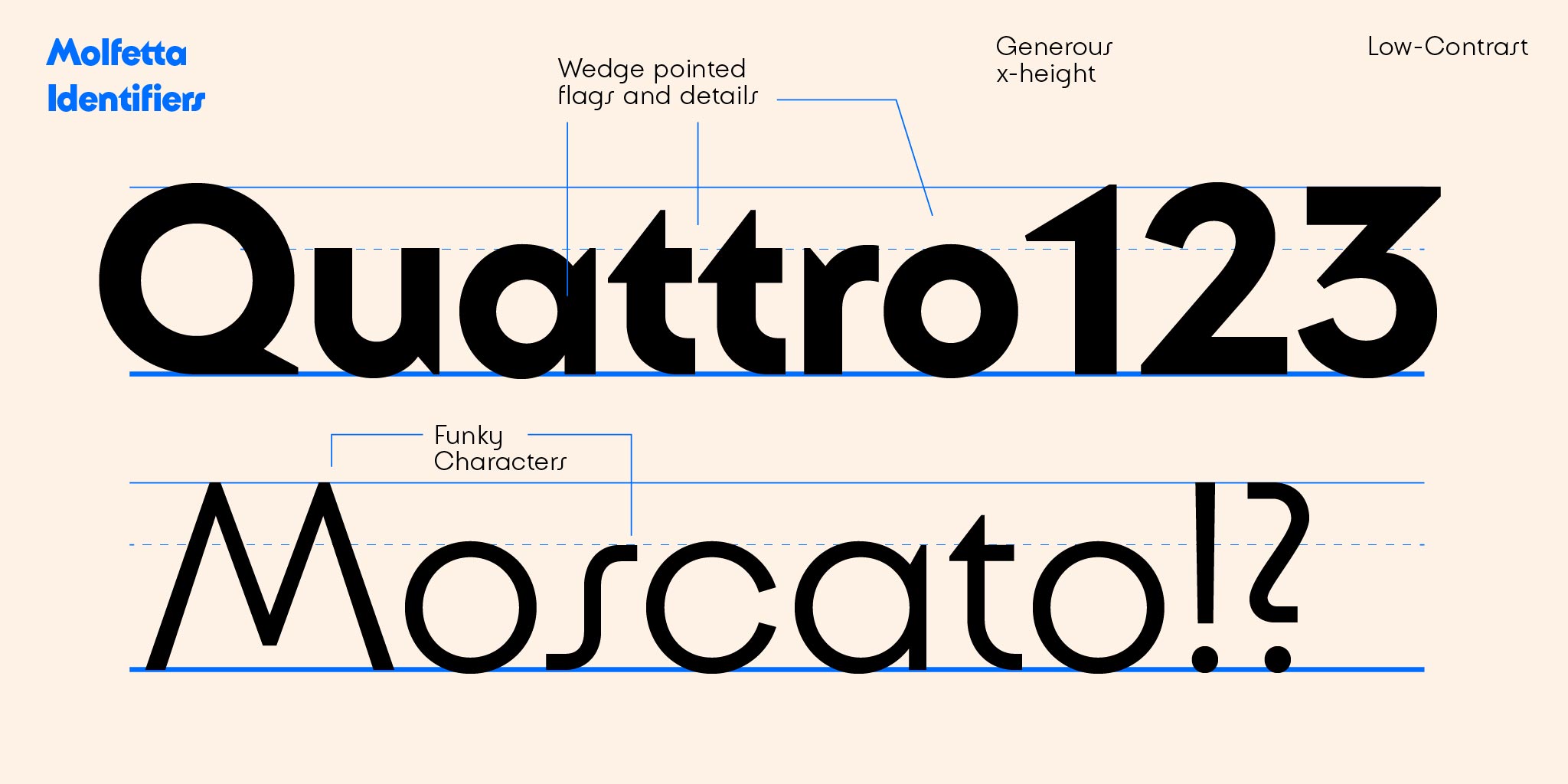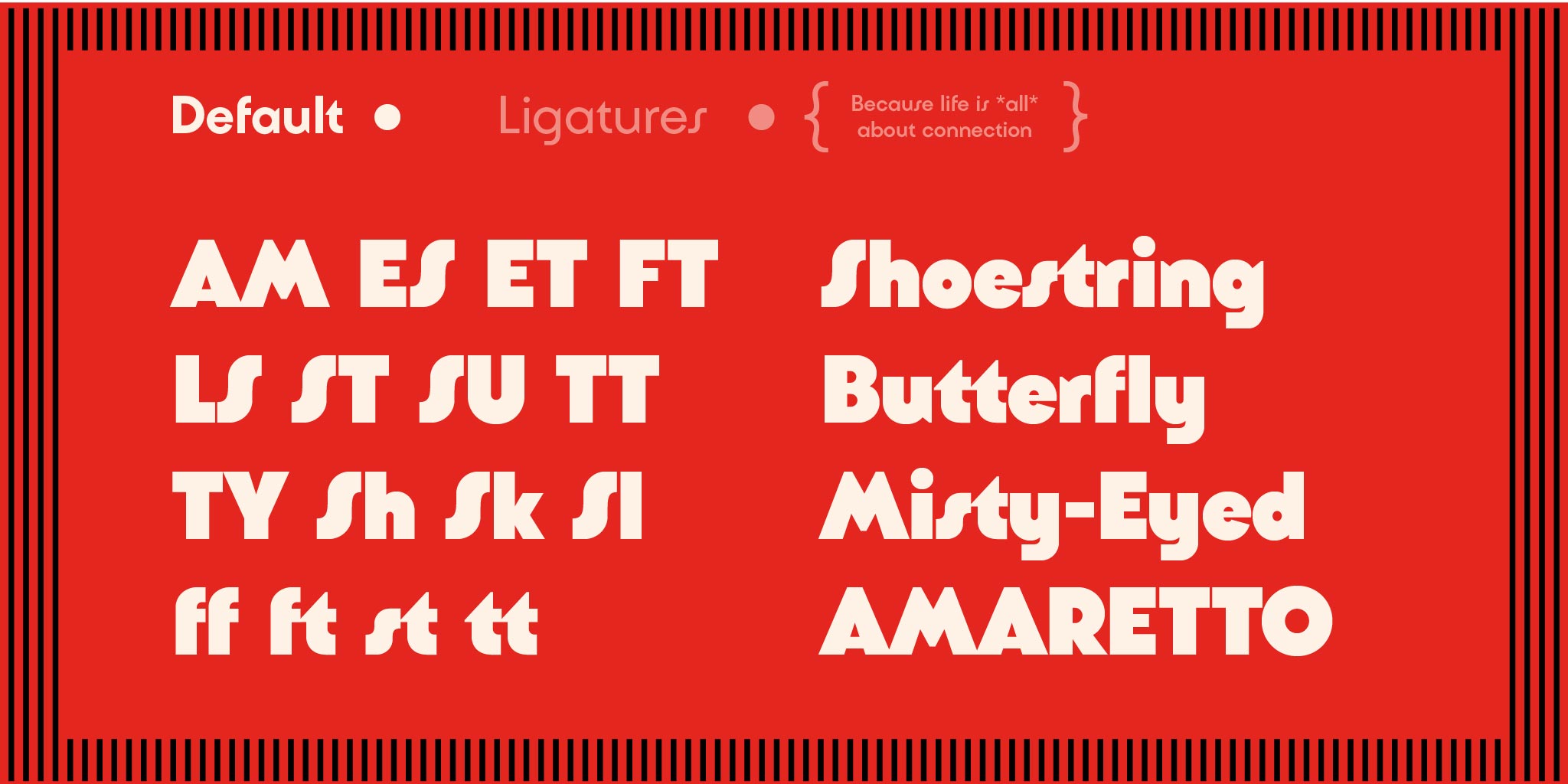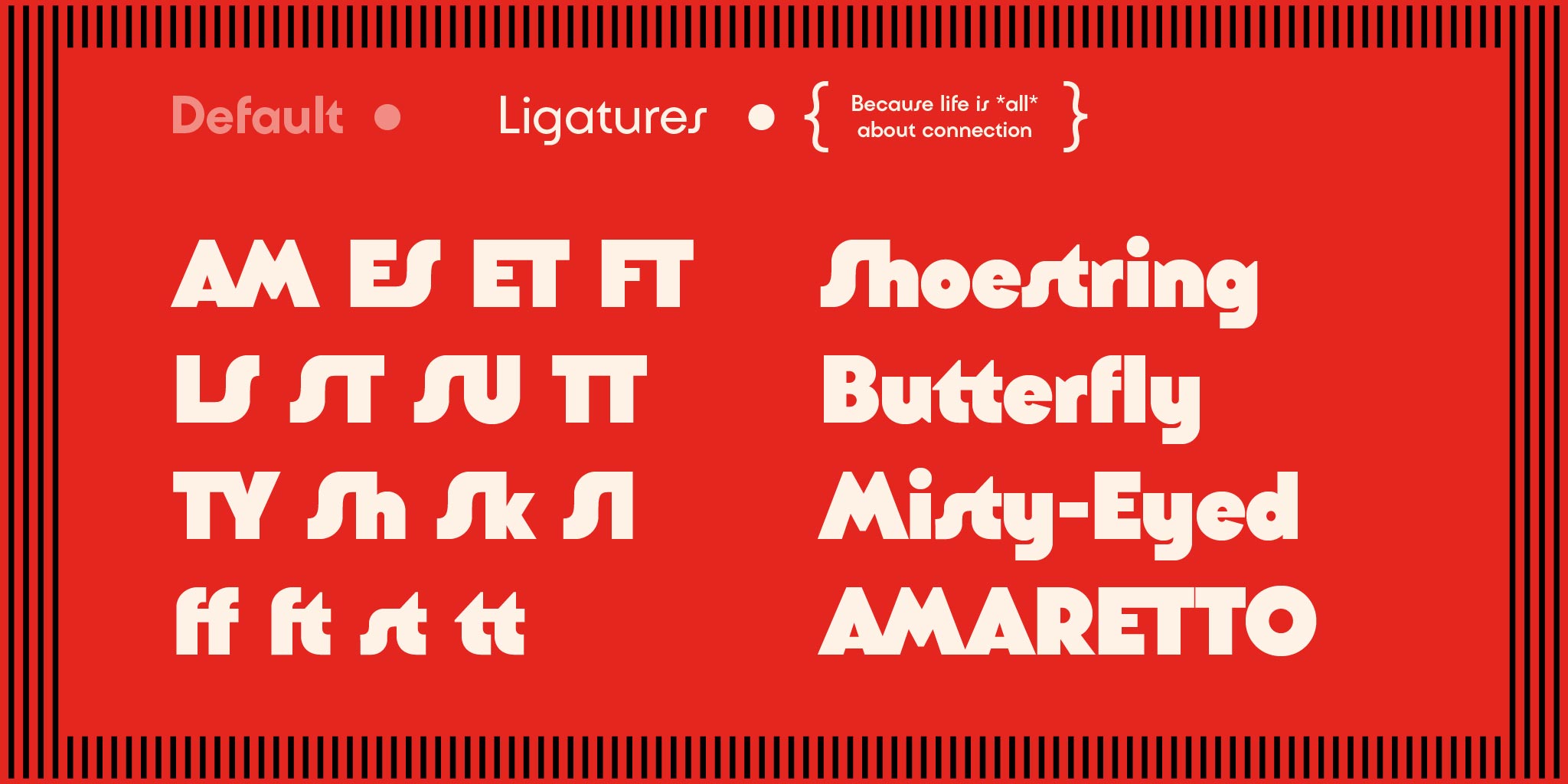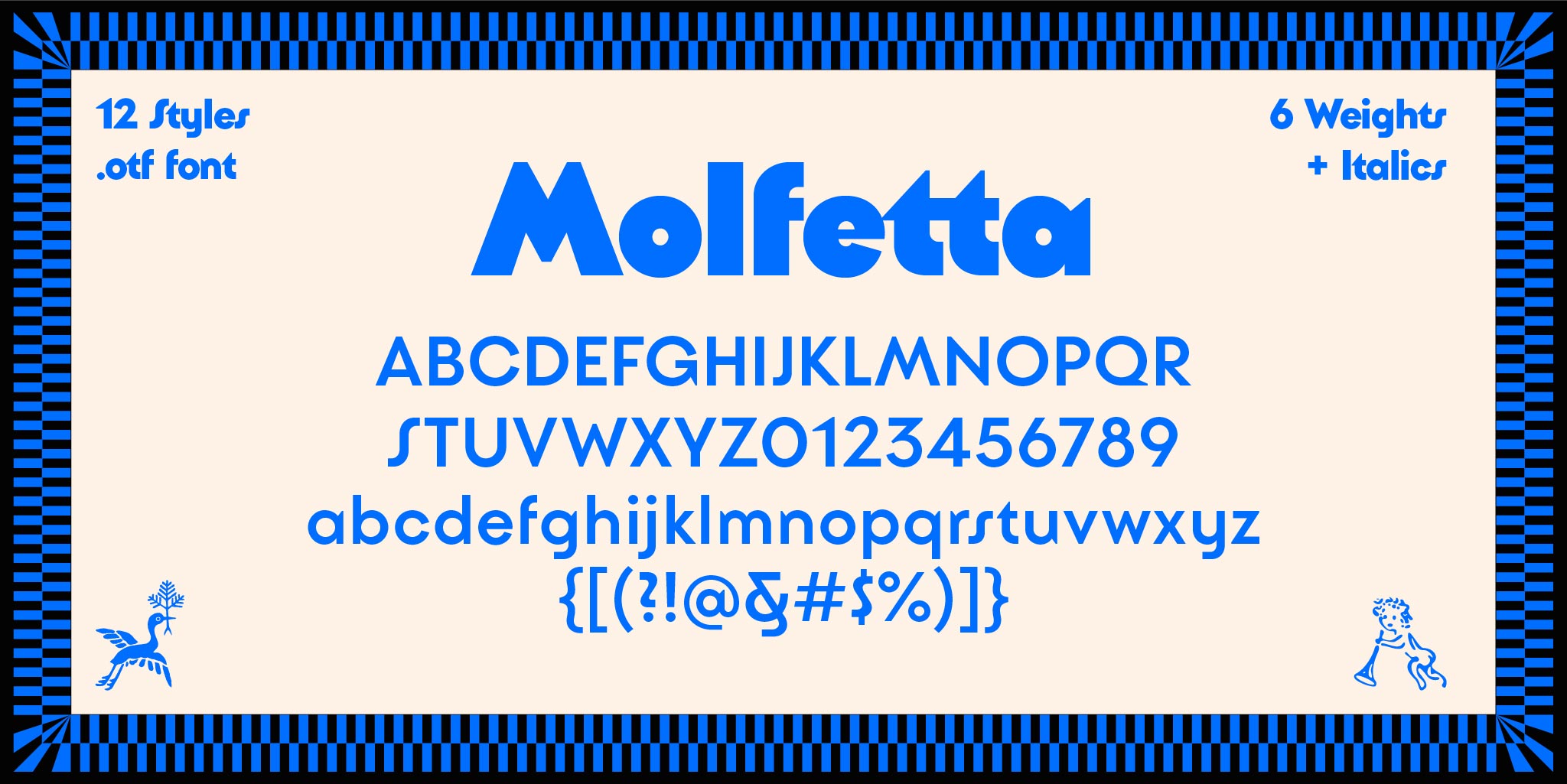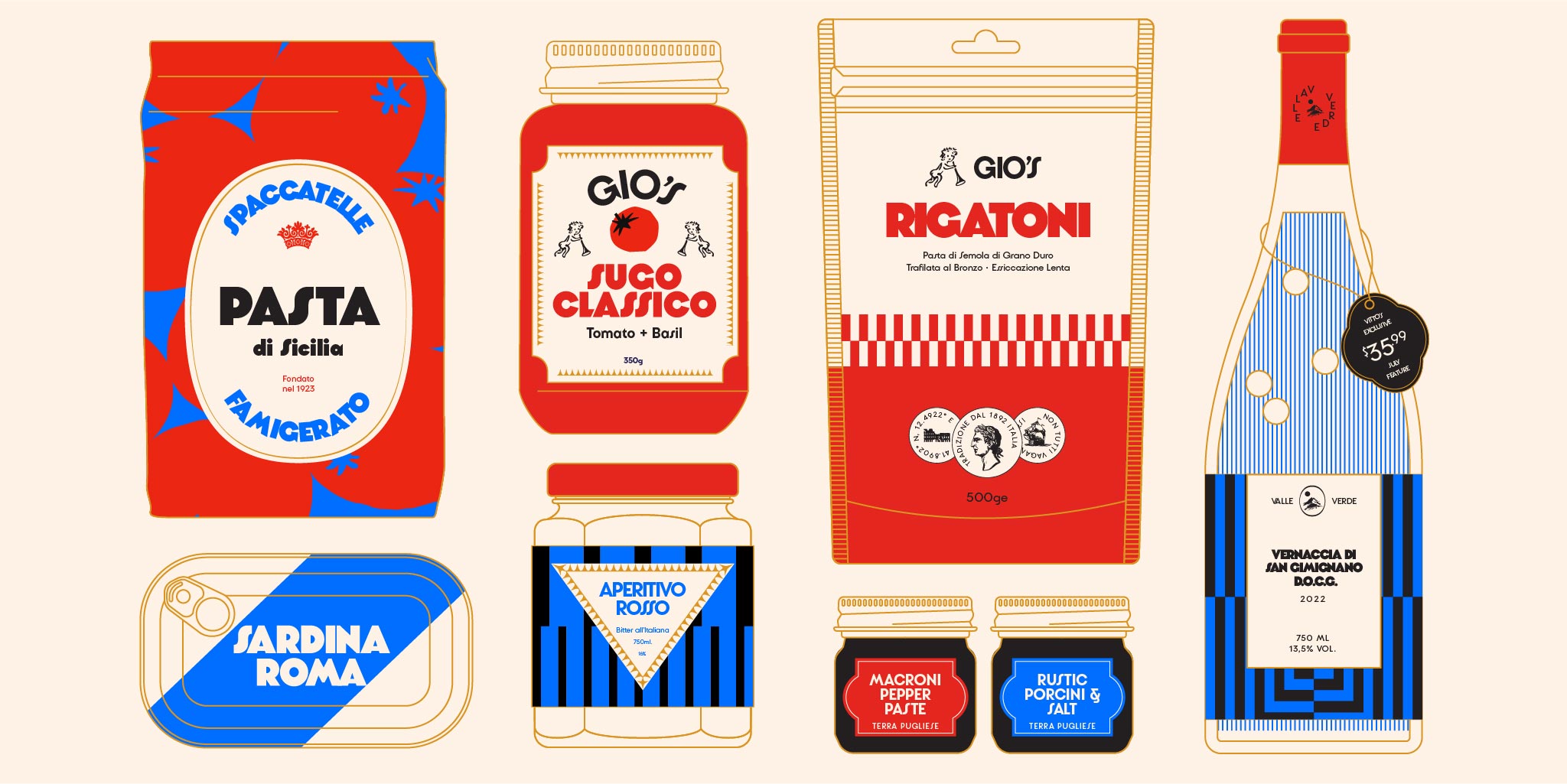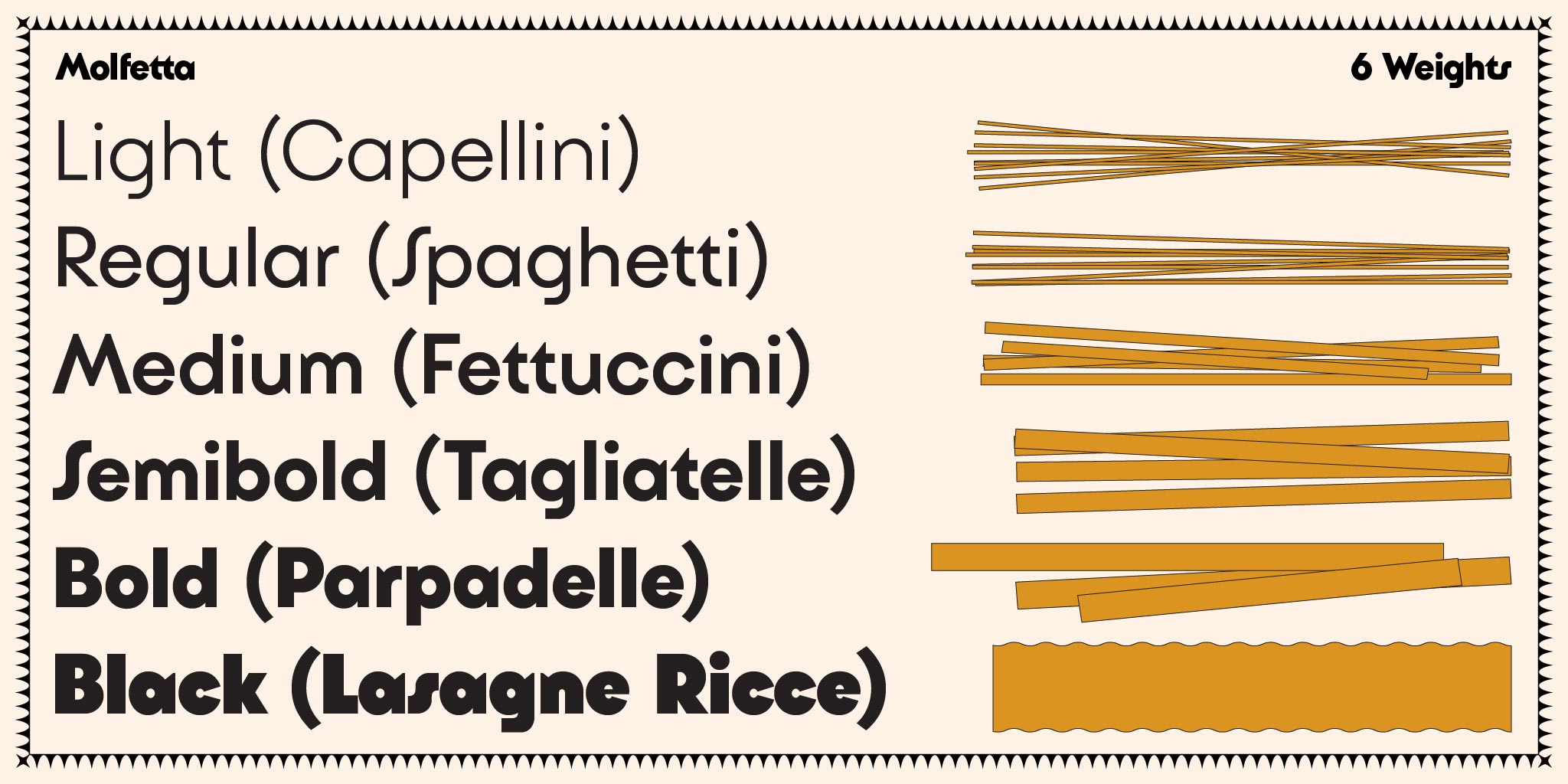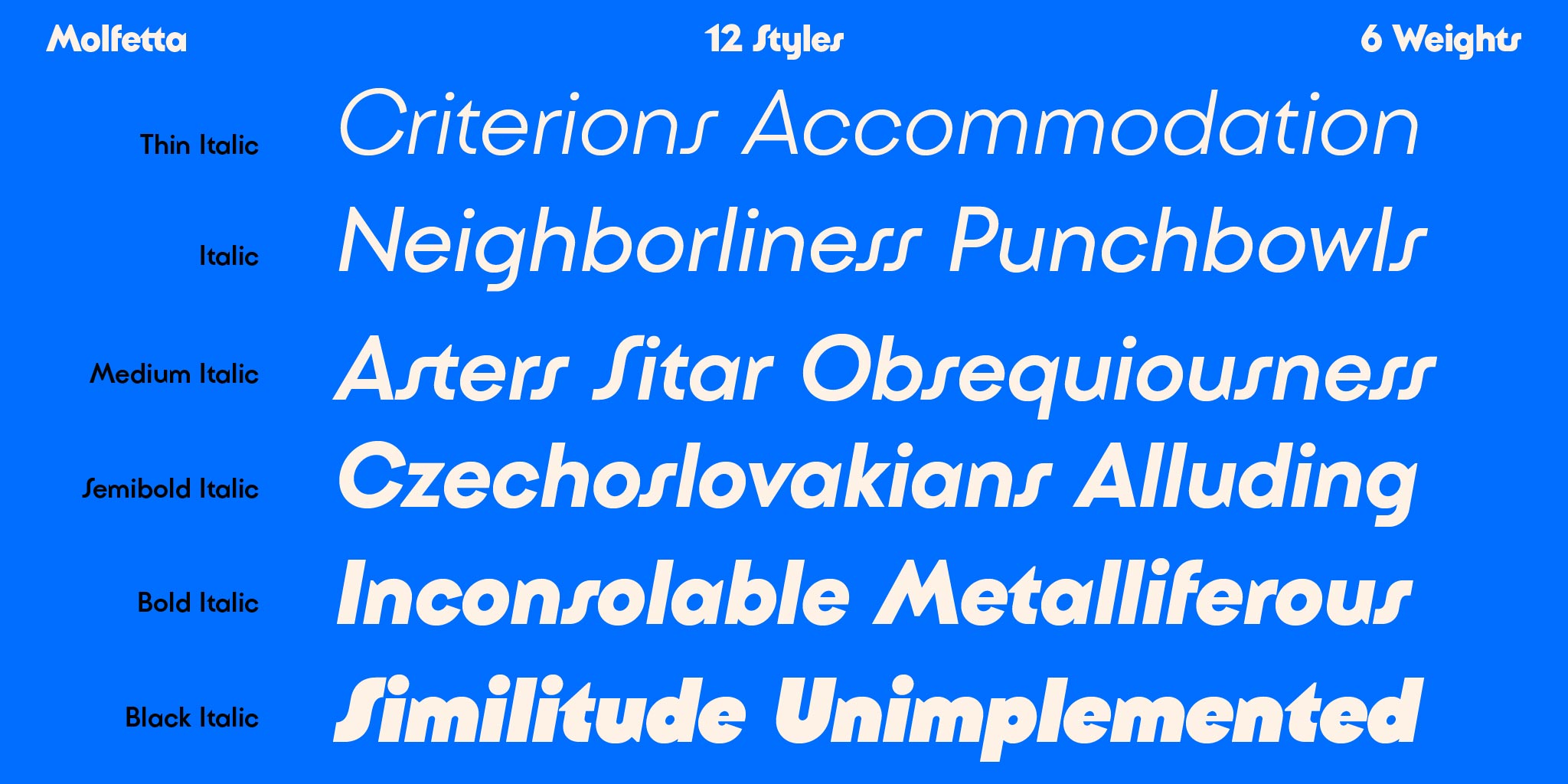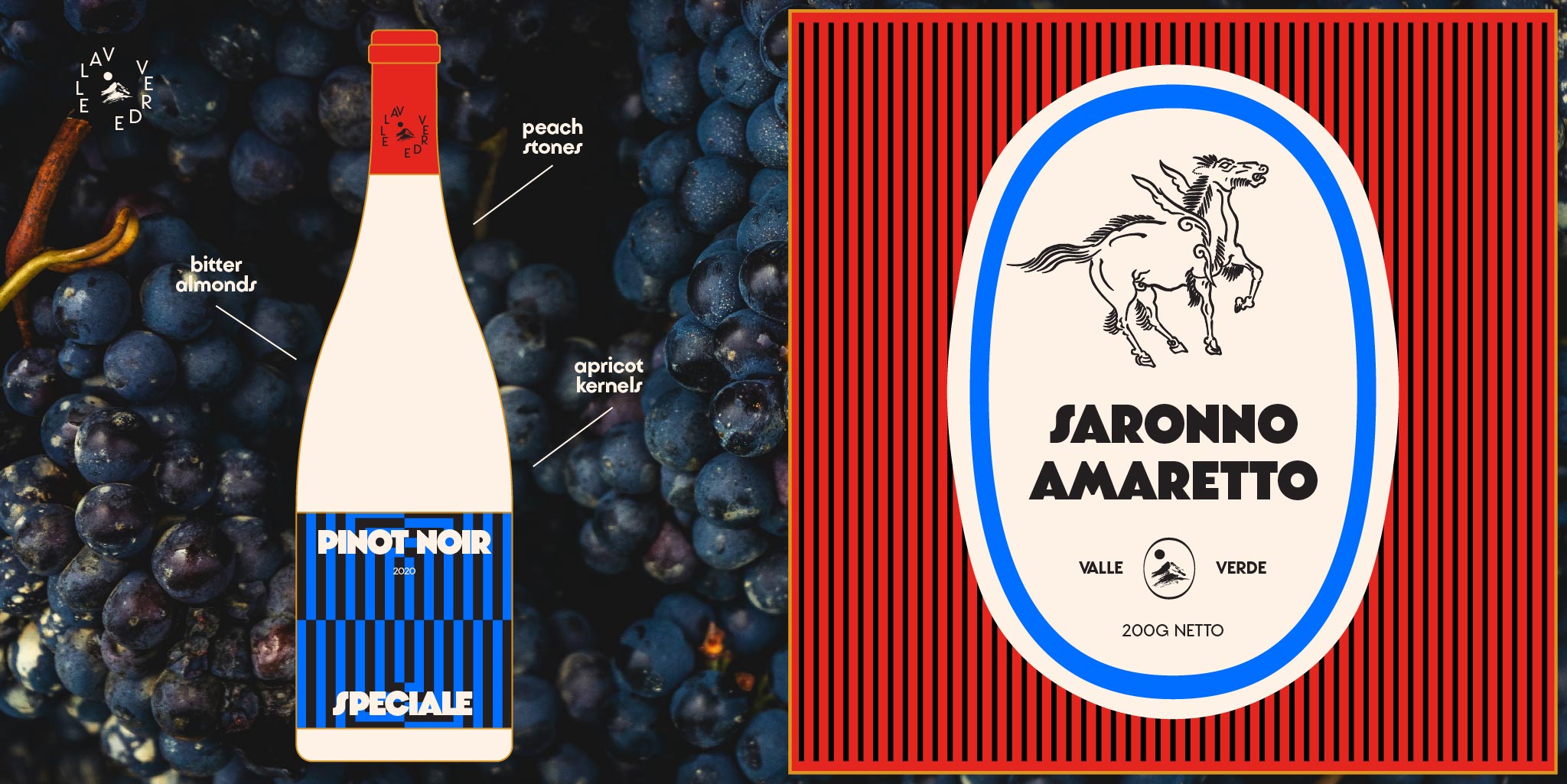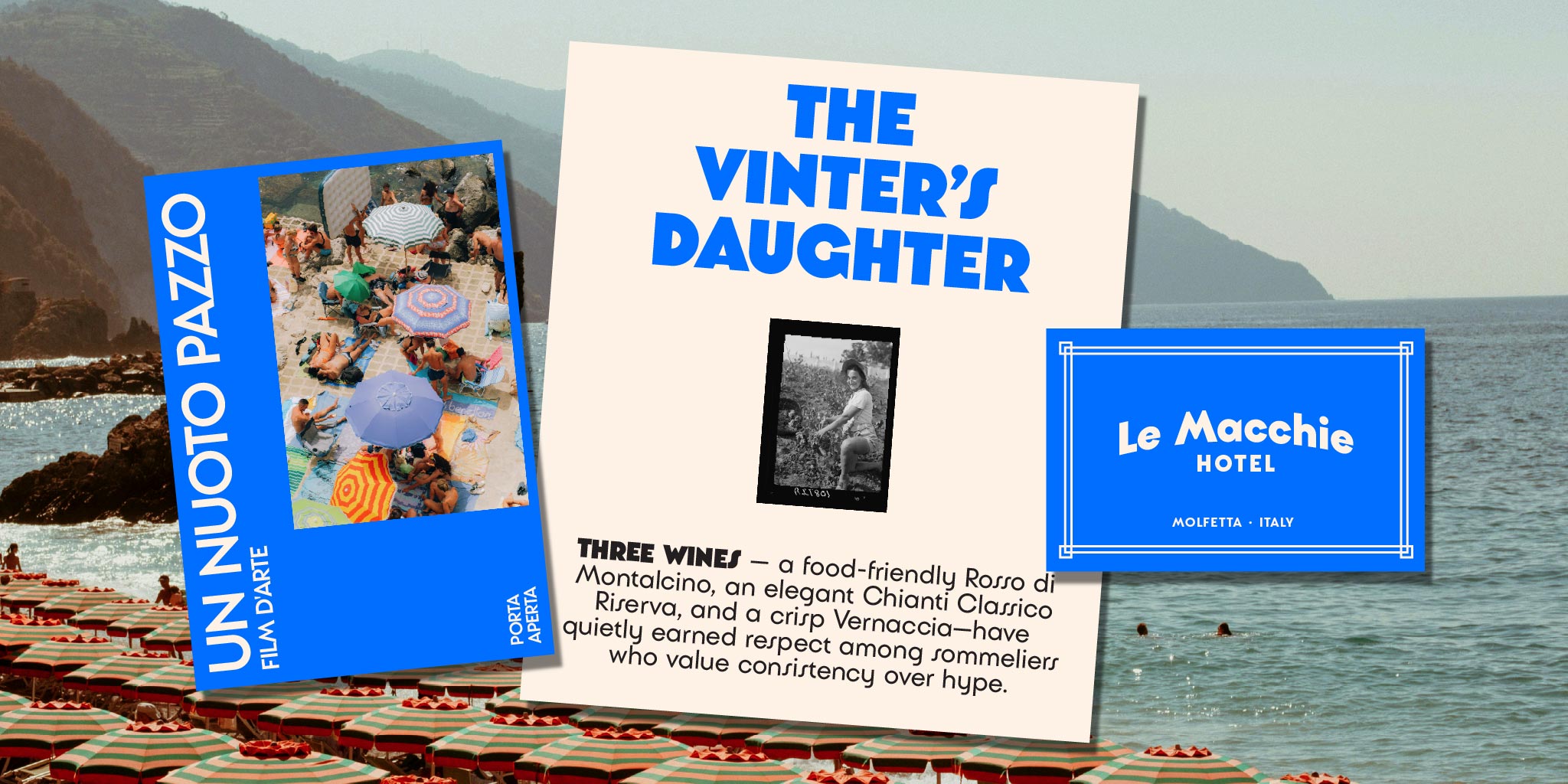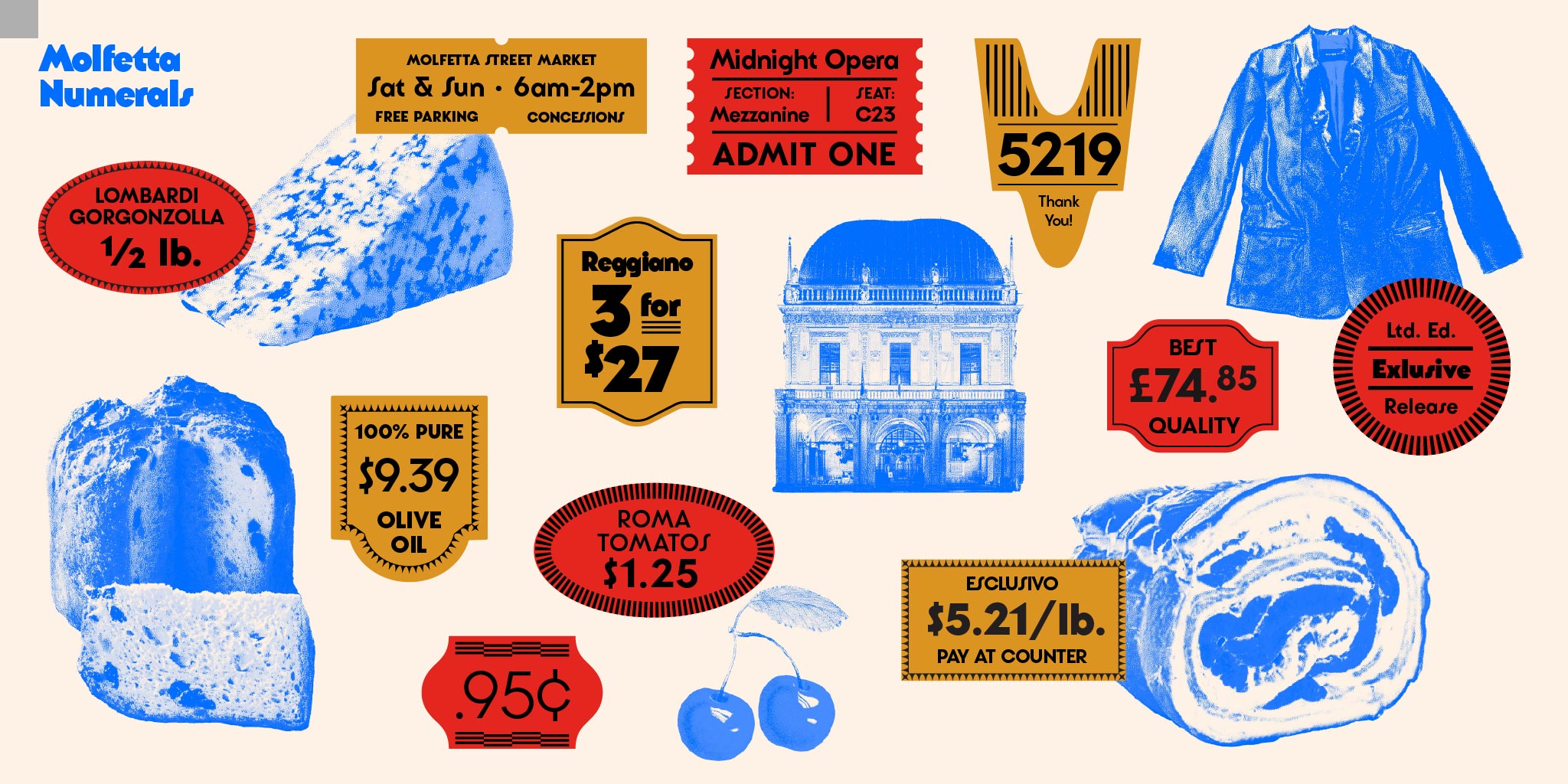
Molfetta
Sans
As charming as the Italian coast and as chonky as Nonna’s lasagna!
Ciao a tutti! Take to the streets and order that gelato “grande”—Hoodzpah is proud to present to you: Molfetta. This deco-infused display typeface is as charming as the Italian coast and as chonky as Nonna’s lasagna. It just demands to be used on your next tasty project.
Molfetta is named after an ancient port city in southern Italy where the coast is lined with chunky, geometric limestone buildings featuring tiny little windows—small glimpses into the lives of those lucky enough to call Molfetta ‘home’.
Like its namesake, Molfetta is a mix of angles, arches, and deliciously thick architecture. It’s charming but sturdy. Both timeless and a time machine back to a thriving city built by the sea. Arrivederci!